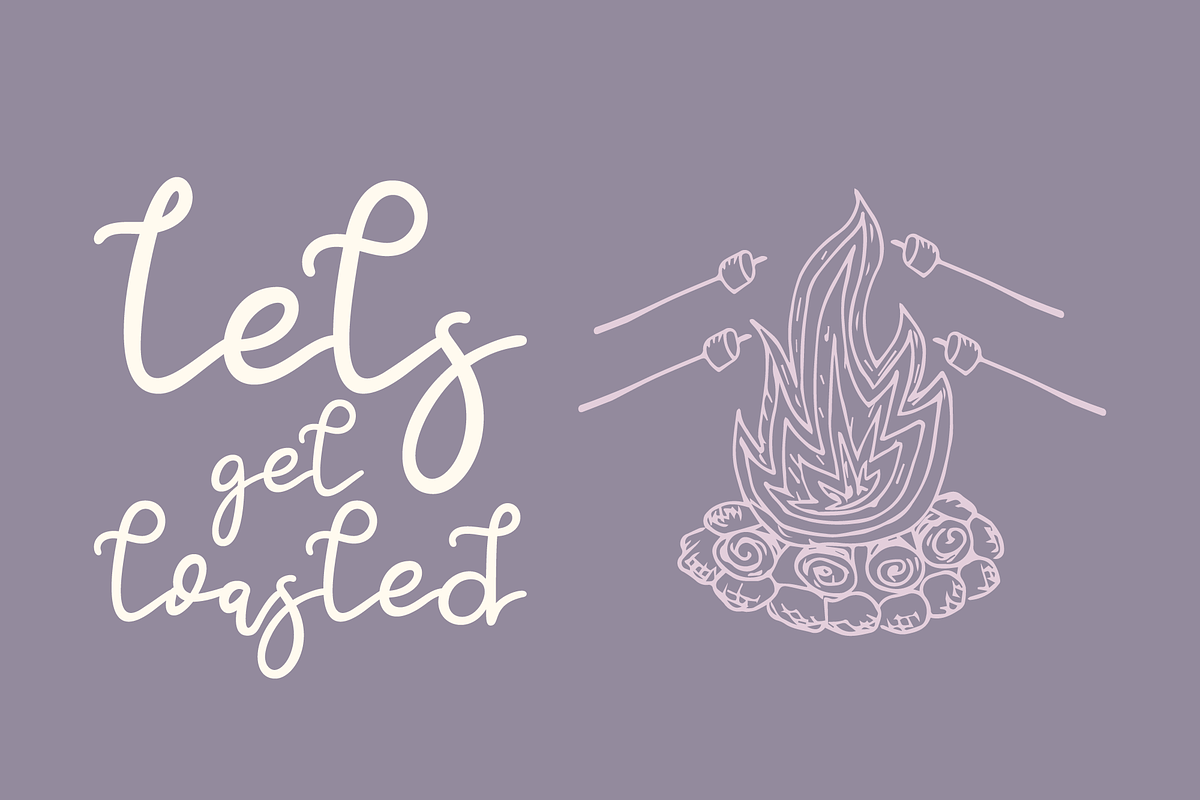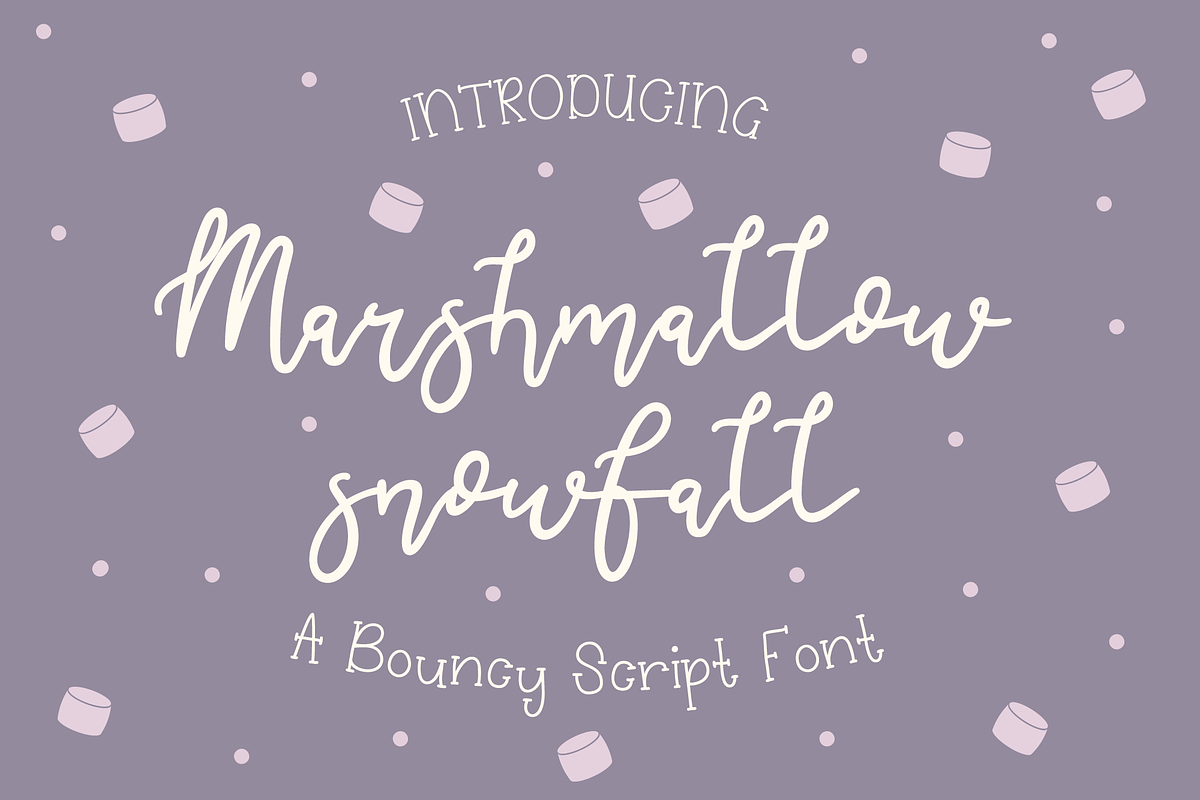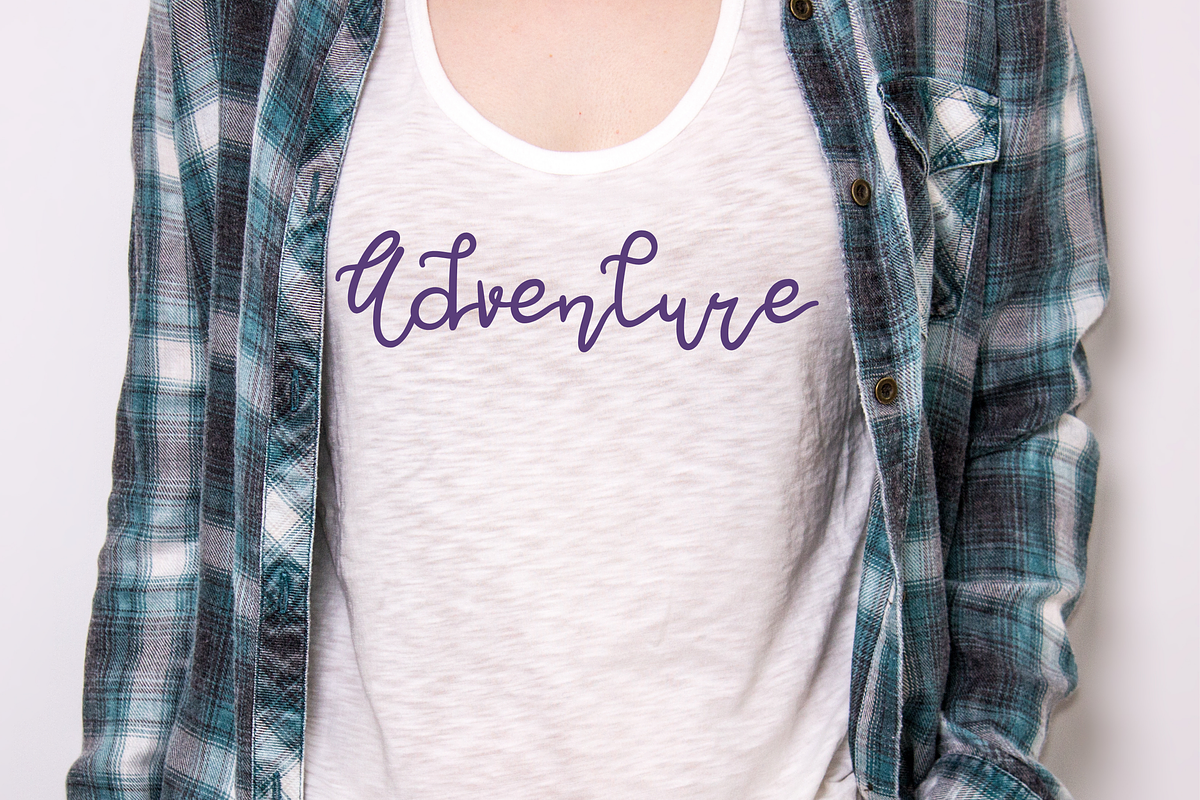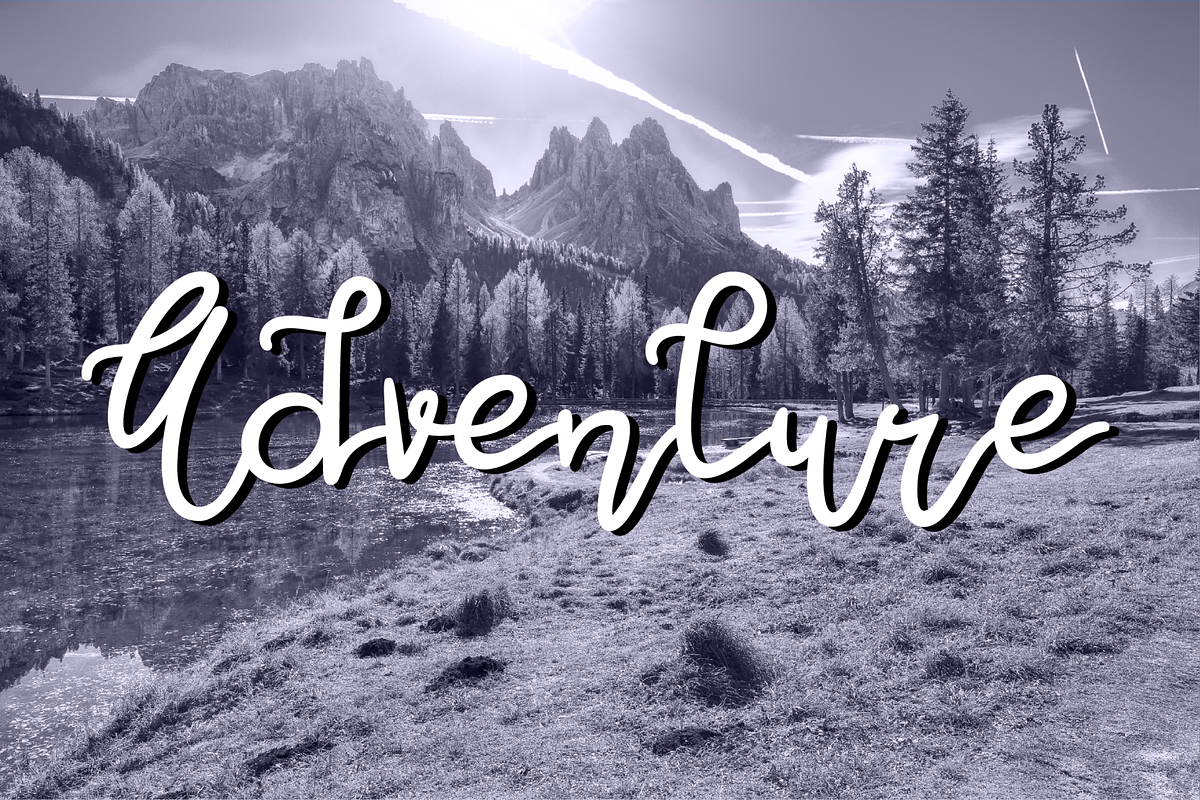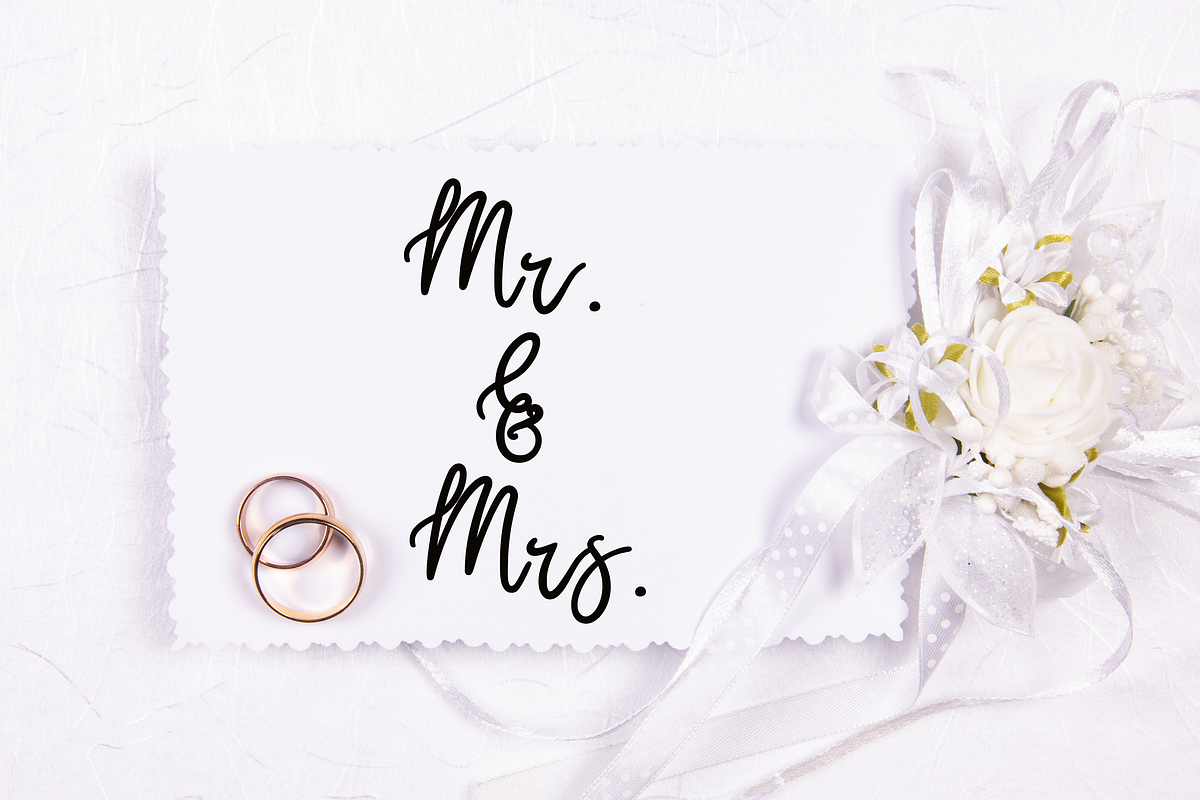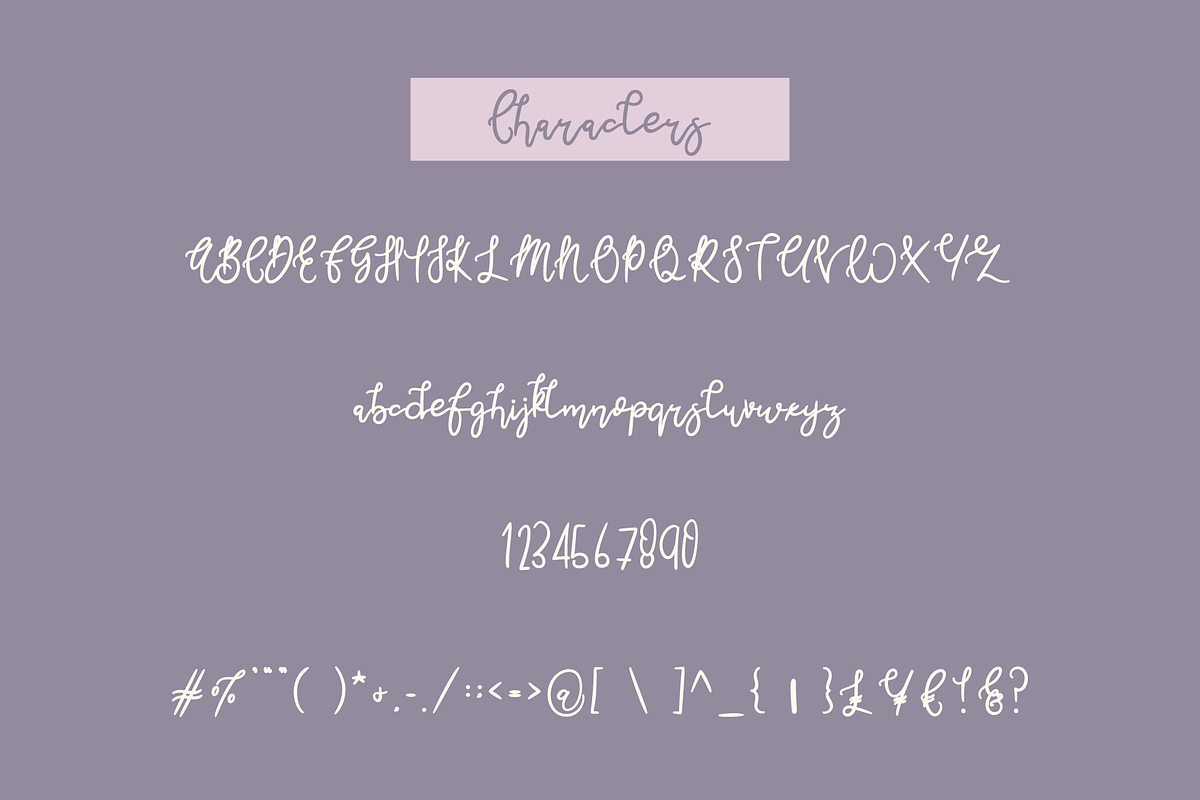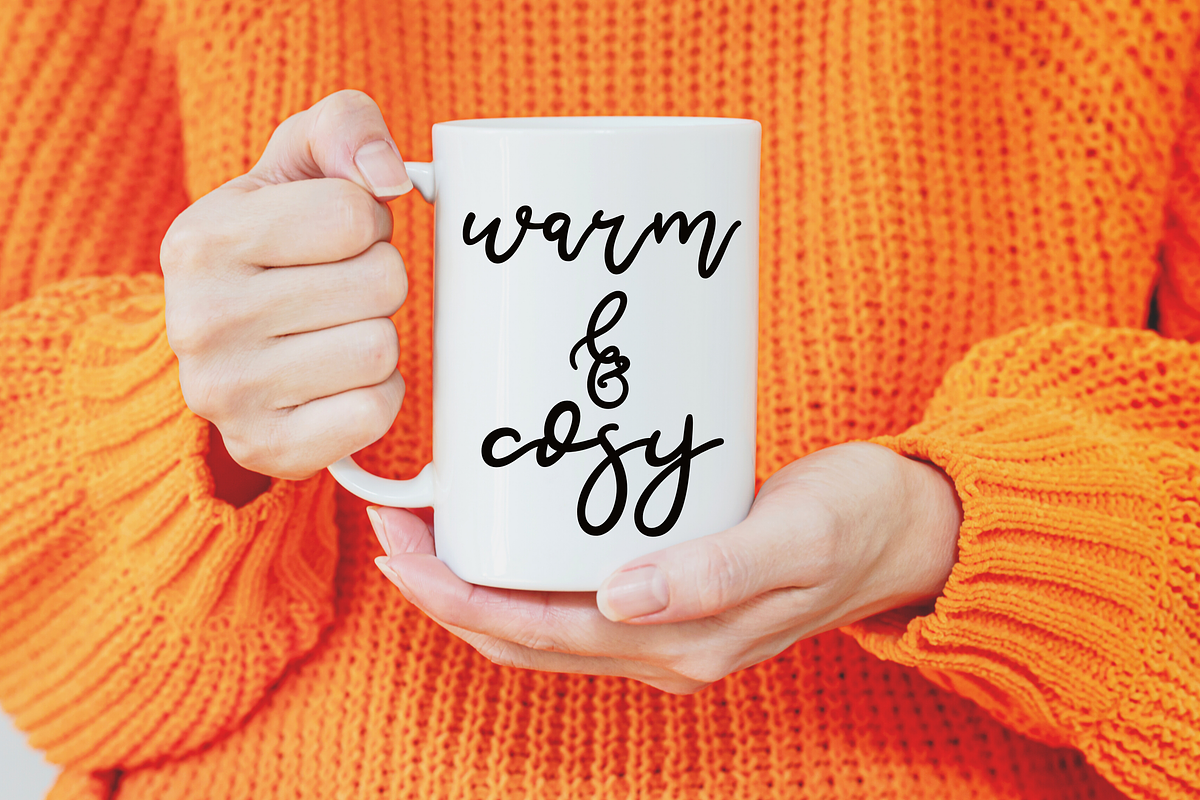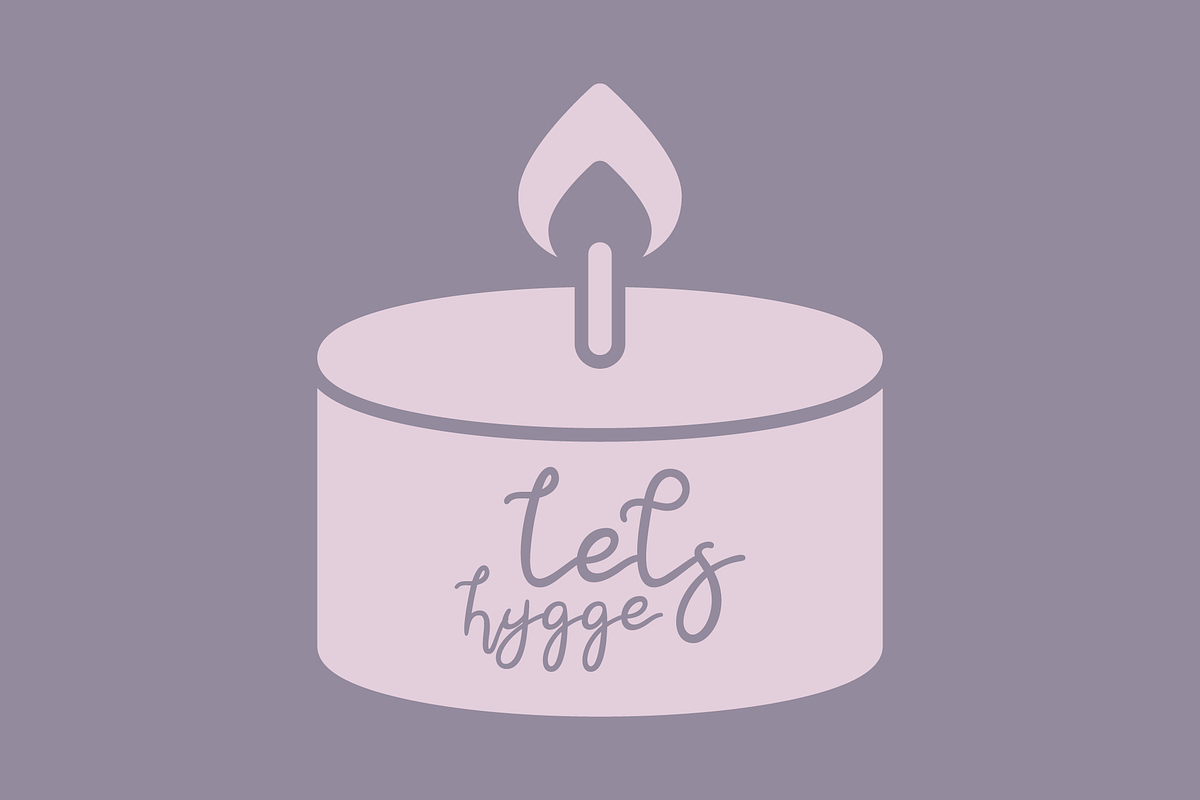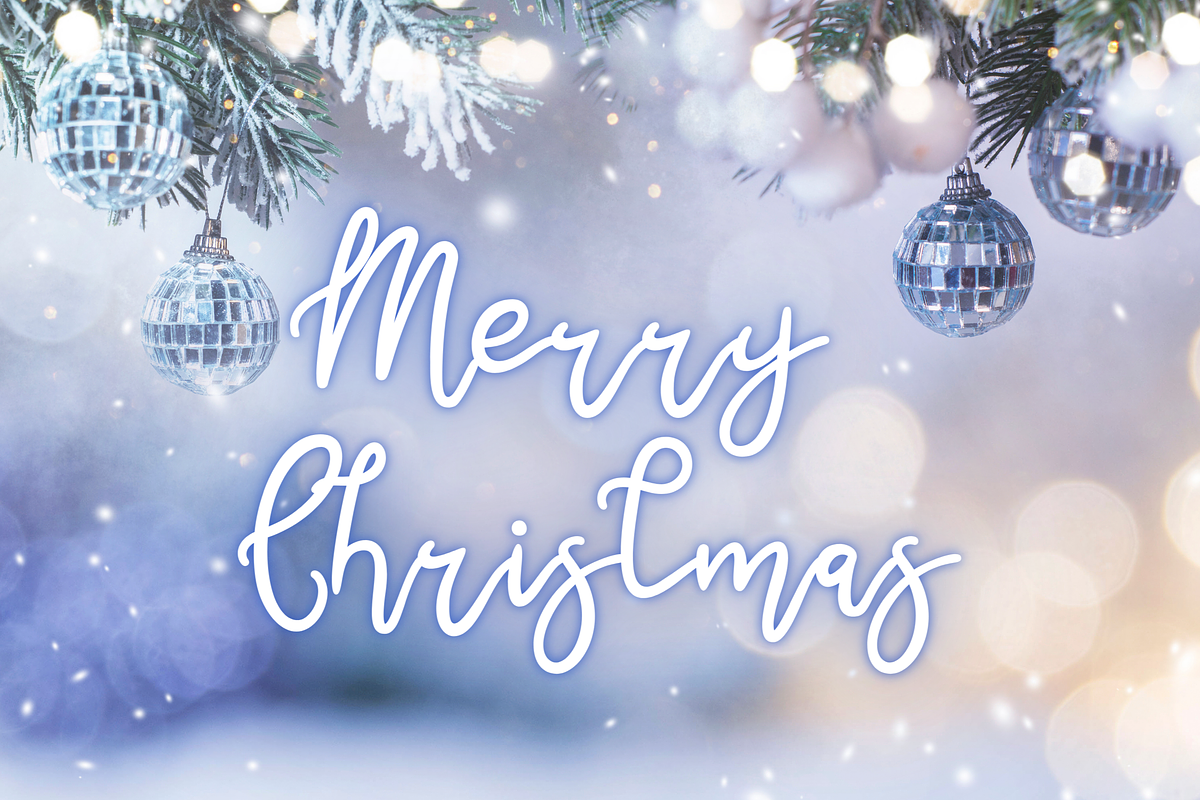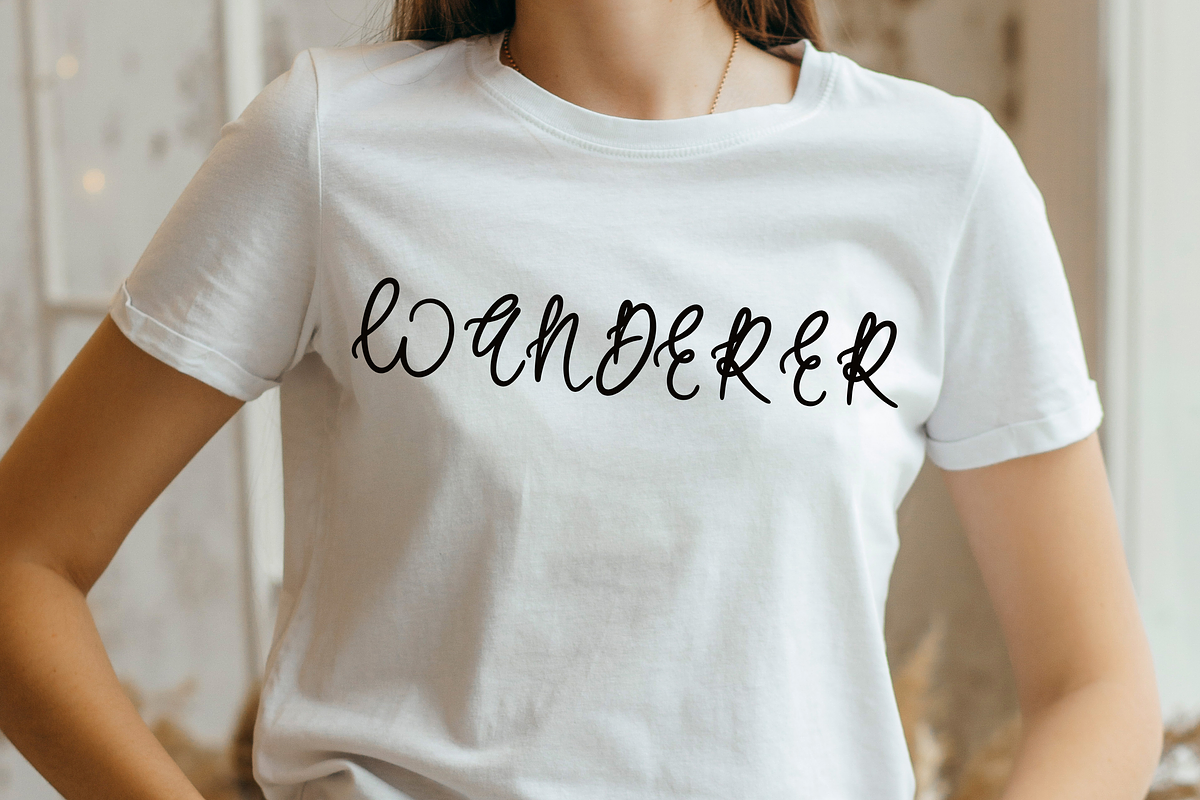
Marshmallow Snowfall Script Font
Introducing Marshmallow Snowfall, an opentype script font. Marshmallow Snowfall is a bouncy script font with a modern & elegant feel. Combining traditional calligraphy with modern bounce lettering this font is perfect for a wide range of design styles and applications such as logo design, wedding invitations, business branding, & web design.